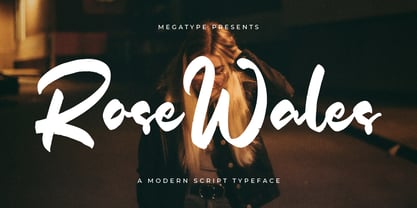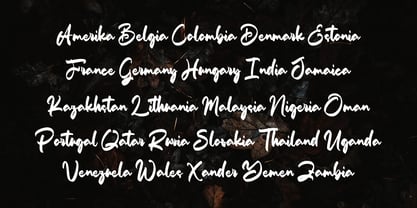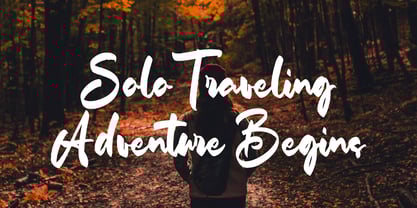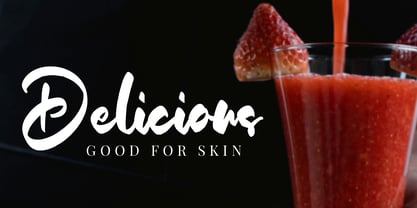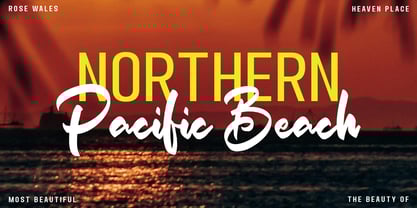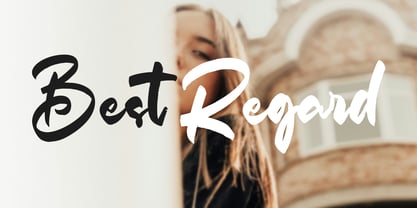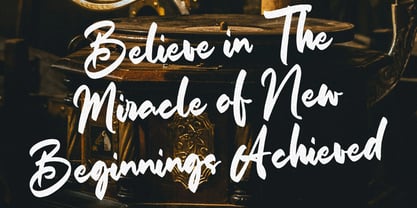
Rose Wales
by Mega Type
The Rose Wales Font Family was designed by M Akmal and published by Mega Type. Rose Wales contains 1 styles. More about this family
Rose Wales is a modern script typeface that blends elegance with a natural handwritten touch. Featuring smooth, flowing strokes and slightly rugged brush textures, this font captures both grace and authenticity. Its well-balanced letterforms are stylish yet easy to read, offering a charming combination of casual and chic. The dynamic contrast and subtle imperfections give it a human feel, making it stand out in both digital and print formats.
This font is particularly well-suited for creative projects that require a personal, emotional, or artisanal feel. Ideal for wedding invitations, fashion branding, social media graphics, lifestyle blogs, signature logos, and packaging design.
Rose Wales brings a touch of modern sophistication while still retaining a handcrafted vibe. It’s perfect for designers seeking a balance between elegance and expression.
Designers: M Akmal
Foundry: Mega Type